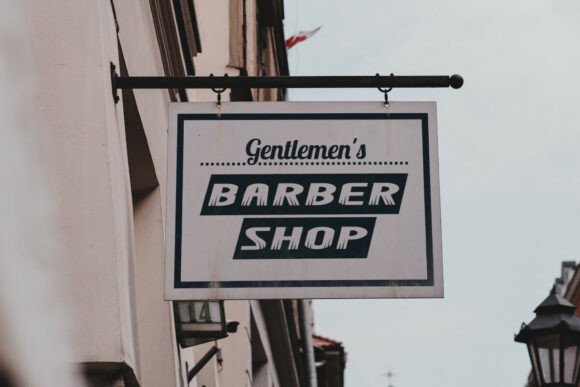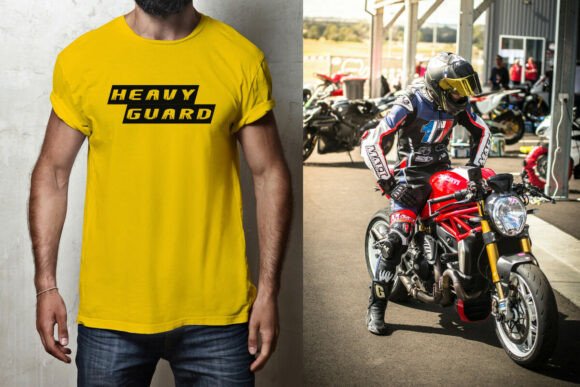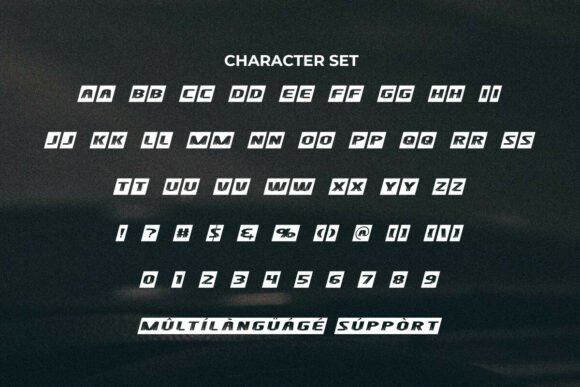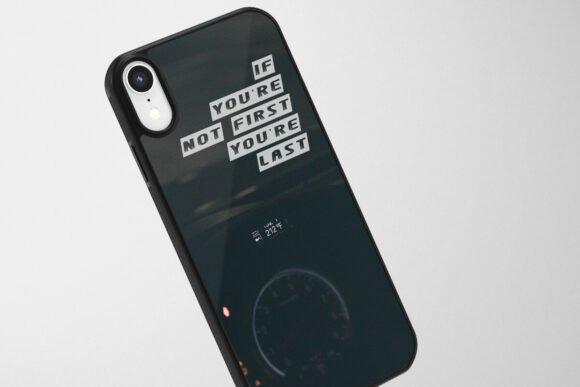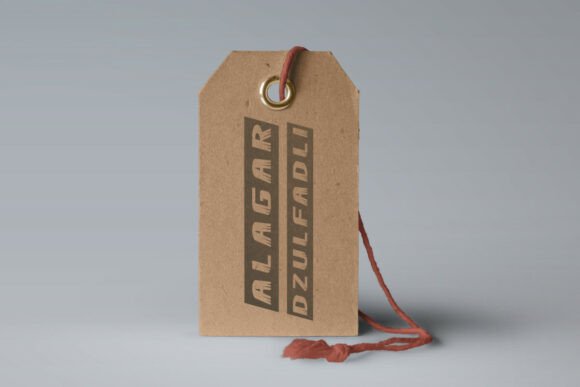
Introduction to Heavy Guard Font
Heavy Guard is a bold racing display font that channels raw energy and speed .
With its sharp angles and streak-like extensions, it captures the sensation of motion, making it a perfect choice for sports, automotive, and gaming projects Its heavy structure conveys toughness, while its slanted shapes express adrenaline and competition.